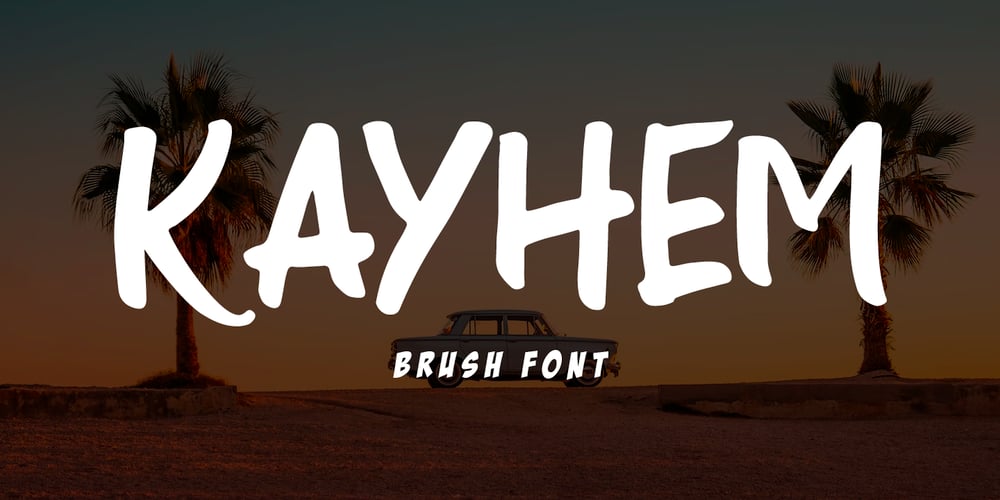
Kayhem Font Family was designed by Rizal Aiyub and published by Fontysia. Kayhem contains 1 styles and family package options. Kayhem is a Handwritten brush script that is written casual and naturaly. the letters are made with brushes on paper and then scanned carefully drawn into vector format. This typeface is ideal for use in any professional project. such as blog titles, posters, packaging, t-shirts, clothing, book covers, business cards, greeting cards, branding, flyer etc.- Uppercase